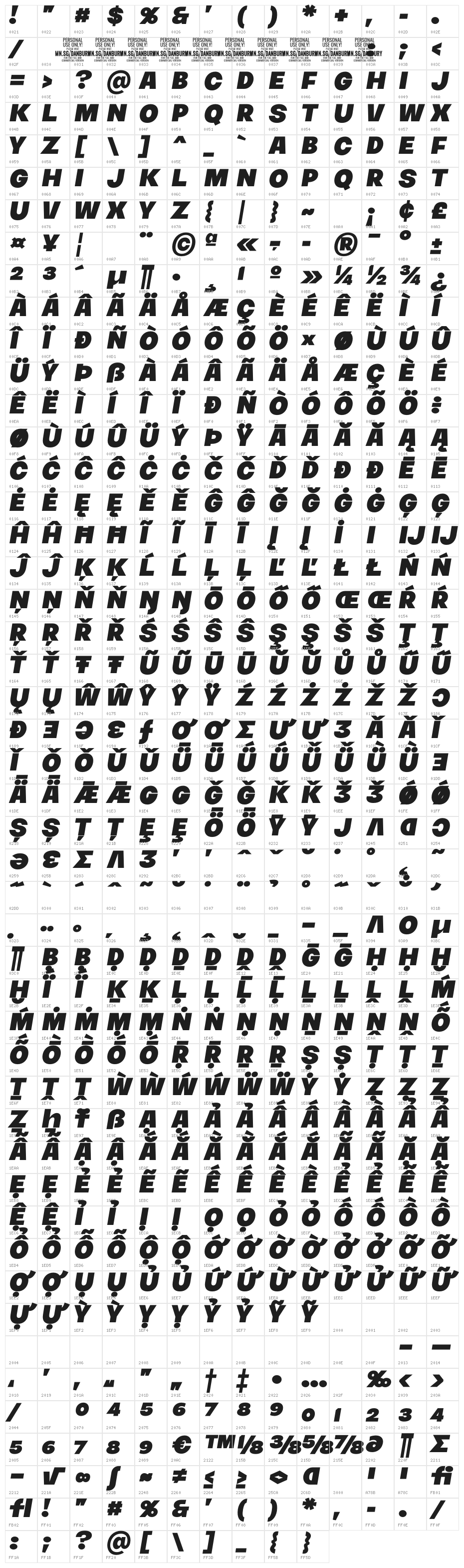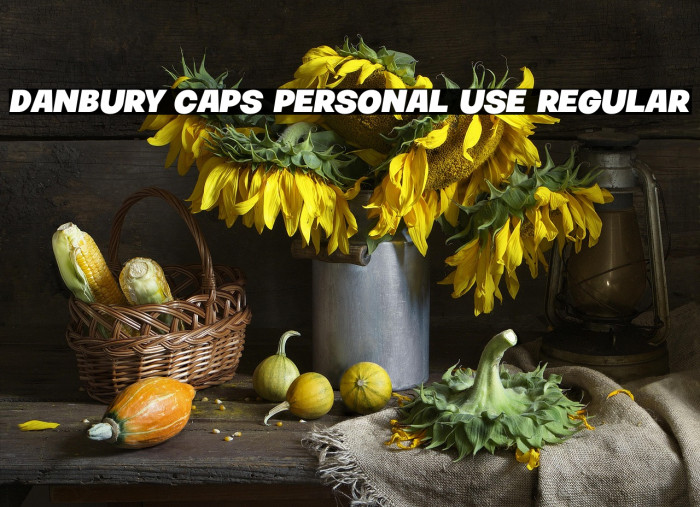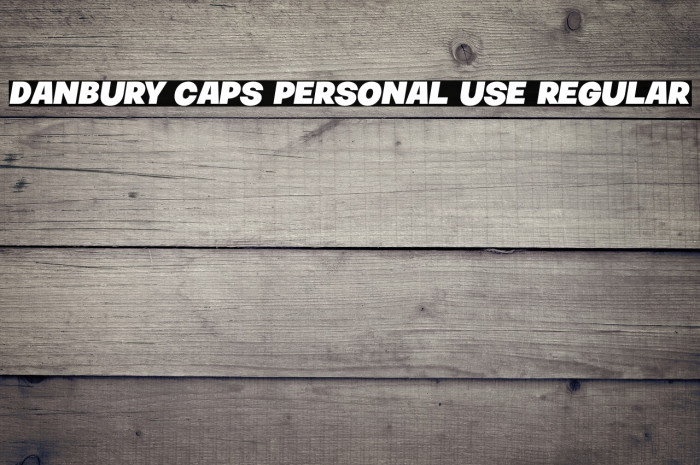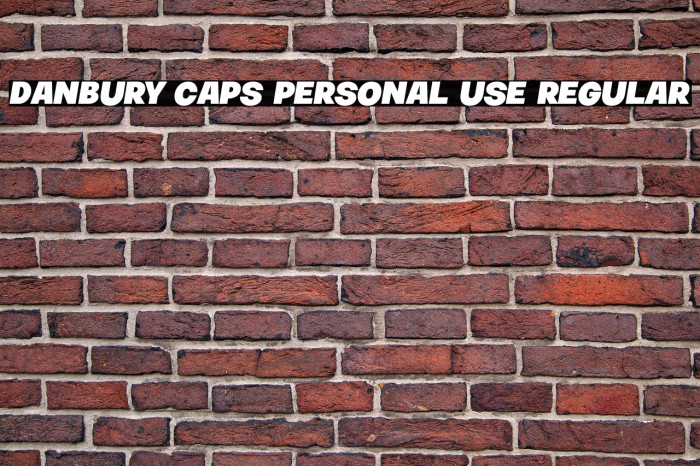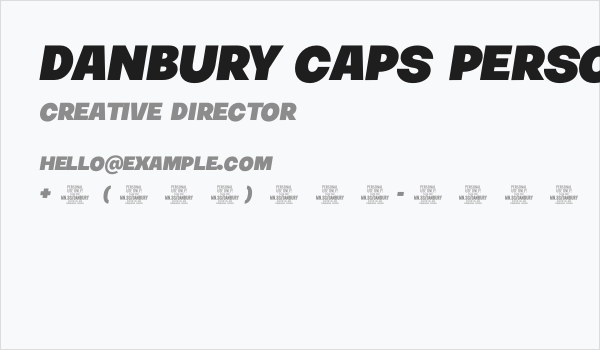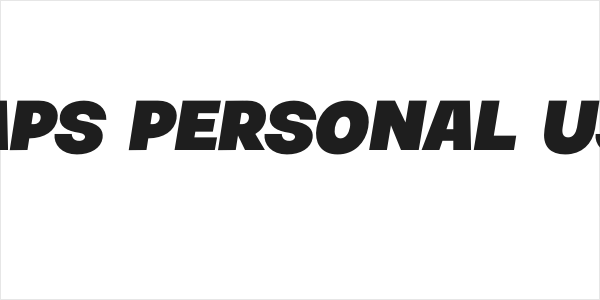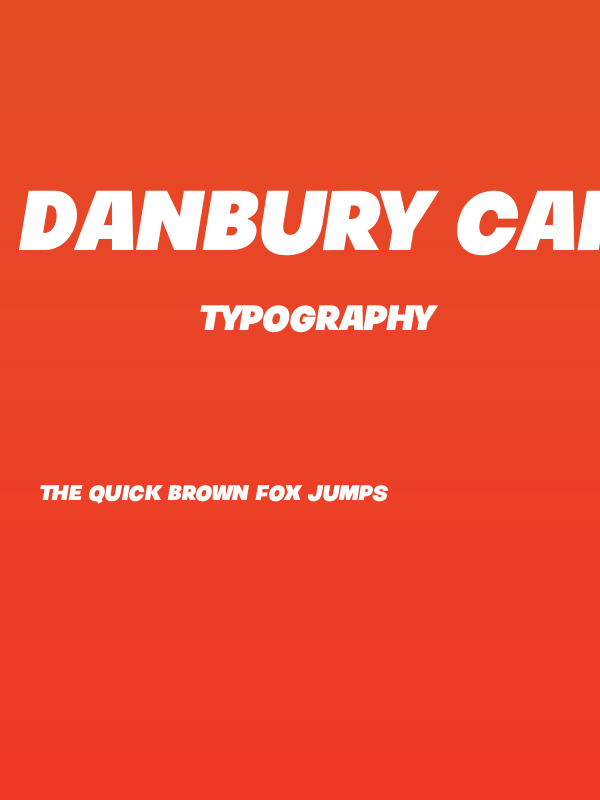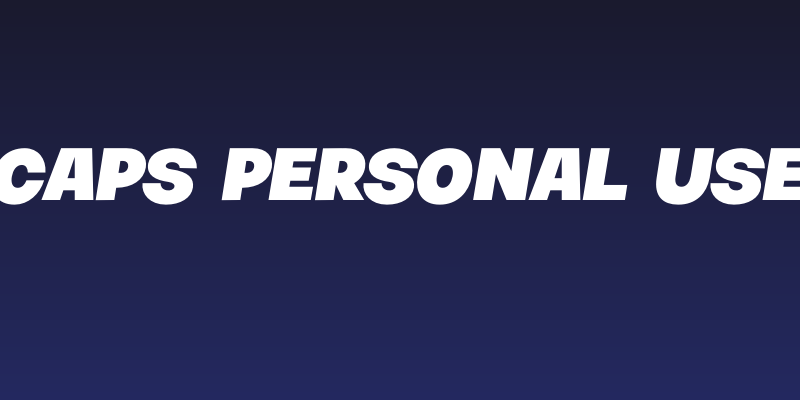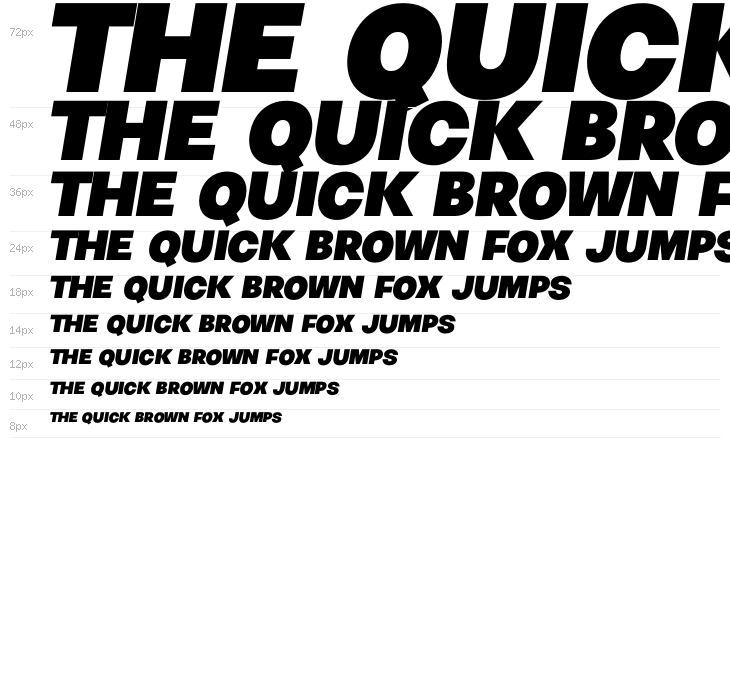
Danbury Caps PERSONAL USE Regular Font
Danbury Caps PERSONAL USE Regular Description
This font features bold, uppercase letters with a strong and impactful presence. The characters are designed with a slight slant, giving them a dynamic and forward-moving appearance. The strokes are thick and consistent, providing a uniform look across all characters. The font includes a full set of uppercase letters, numbers, and a selection of special characters. Its boldness and slant make it suitable for attention-grabbing headlines and titles.
| Proposed Projects | Ideal for posters, headlines, branding, and advertising where a strong visual impact is needed. |